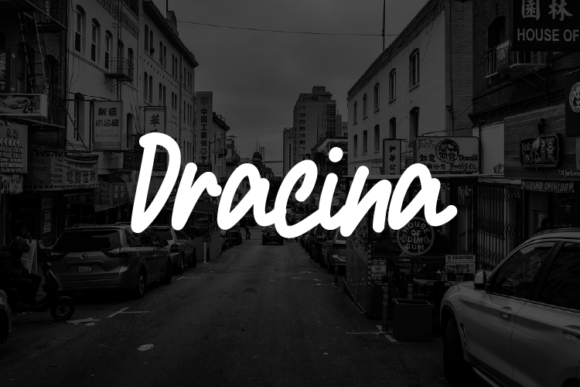
Dracina Font: Elevate Your Designs with Elegance and Readability
In the world of typography, a font can make or break a design. With the vast array of typefaces available, selecting the perfect one can be a daunting task. However, if you’re looking for a modern and elegant solution that offers flexibility and excellent readability, look no further than Dracina Font. In this article, we’ll explore the features and benefits of Dracina, and why it’s an excellent choice for designers and crafters alike.
Introduction to Dracina Font
Dracina is a contemporary typeface designed to excel in a wide range of media. Whether you’re working on a digital project, printing materials, or crafting handmade goods, Dracina’s versatility and legibility make it an ideal choice. Its sleek and refined aesthetic is perfect for designs that require a touch of sophistication and elegance.
Key Features of Dracina Font
So, what sets Dracina apart from other typefaces? Here are some of its key features:
- Excellent readability: Dracina’s carefully crafted letterforms provide exceptional legibility, even at small font sizes, making it perfect for body text, captions, and other applications where readability is crucial.
- Flexibility: Dracina’s modern design allows it to adapt seamlessly to various design contexts, from digital media to print materials, and even handmade crafts.
Whether you’re a professional designer or a crafty enthusiast, Dracina Font offers numerous benefits:
- Consistent branding: Dracina’s elegant and modern aesthetic ensures consistent branding across different media, helping you establish a strong visual identity.
- Easy to read: Dracina’s exceptional readability makes it perfect for designs that require a lot of text, such as articles, blog posts, and instructional materials.
- Inspires creativity: Dracina’s sleek and refined design inspires creativity, allowing you to focus on the artistic aspects of your project rather than worrying about typography.
Use Cases for Dracina Font
Dracina’s versatility makes it suitable for a wide range of applications:
- Digital design: Use Dracina for website designs, social media graphics, and digital marketing materials.
- Print materials: Dracina is perfect for printing business cards, brochures, posters, and other marketing materials.
- Crafting and DIY projects: Add a touch of elegance to your handmade crafts, such as journals, cards, and scrapbooking projects.
- Branding and identity: Establish a strong visual identity with Dracina’s modern and elegant aesthetic.
In conclusion, Dracina Font is an excellent choice for designers and crafters seeking a modern, elegant, and highly readable typeface. Its OpenType Font file format ensures compatibility across various design software and office applications, making it a versatile solution for a wide range of projects. With Dracina, you can elevate your designs, streamline your workflow, and establish a strong visual identity. So why wait? Give Dracina a try and experience the power of elegant typography for yourself.